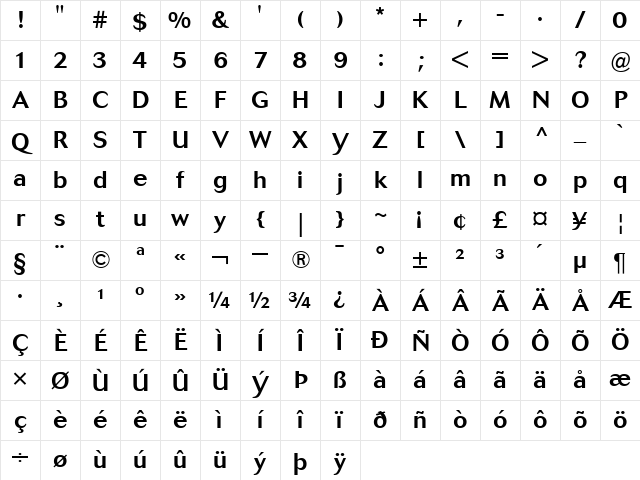
Complete Cosmos- Medium glyph index. Displaying only characters natively supported by Cosmos- Medium font.
Cosmos- is a composed and adaptable typeface that performs quietly and consistently across a wide range of design contexts.